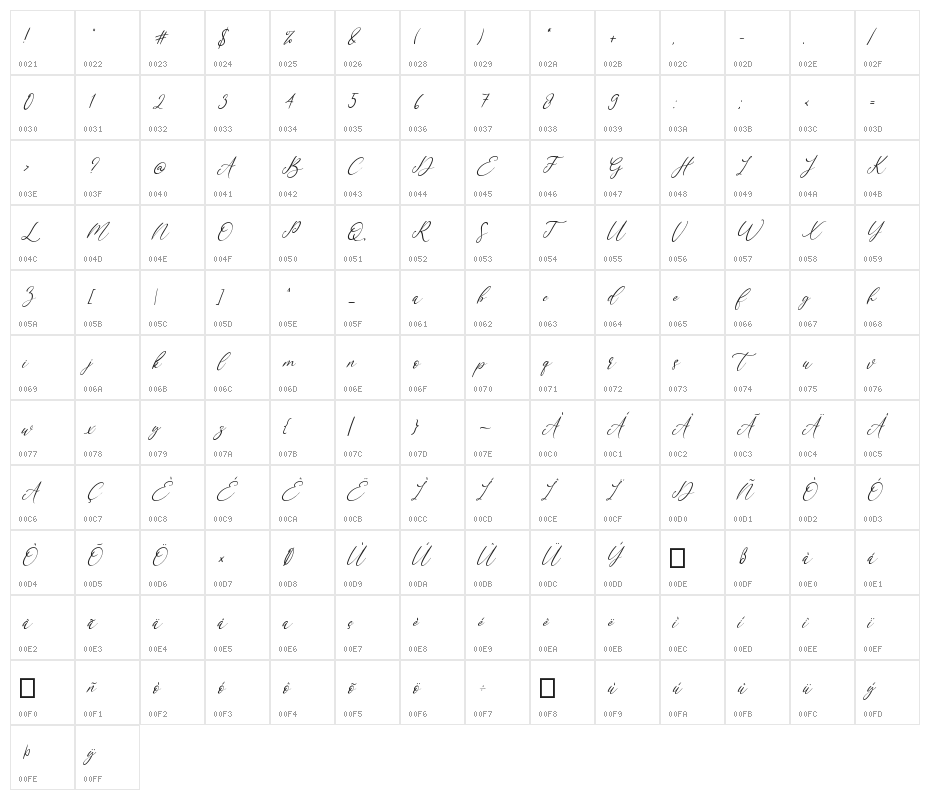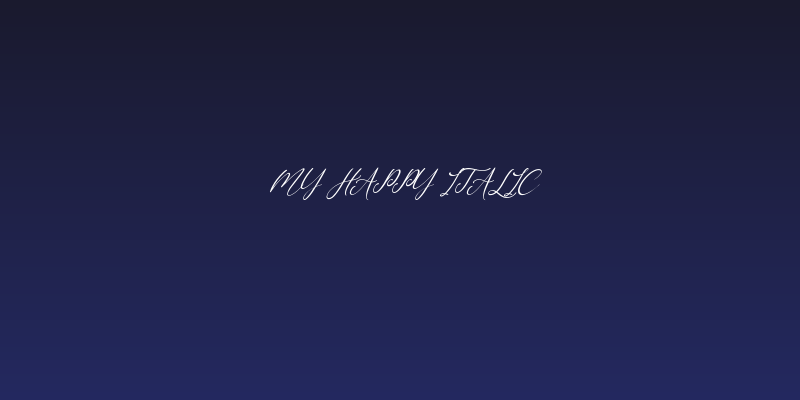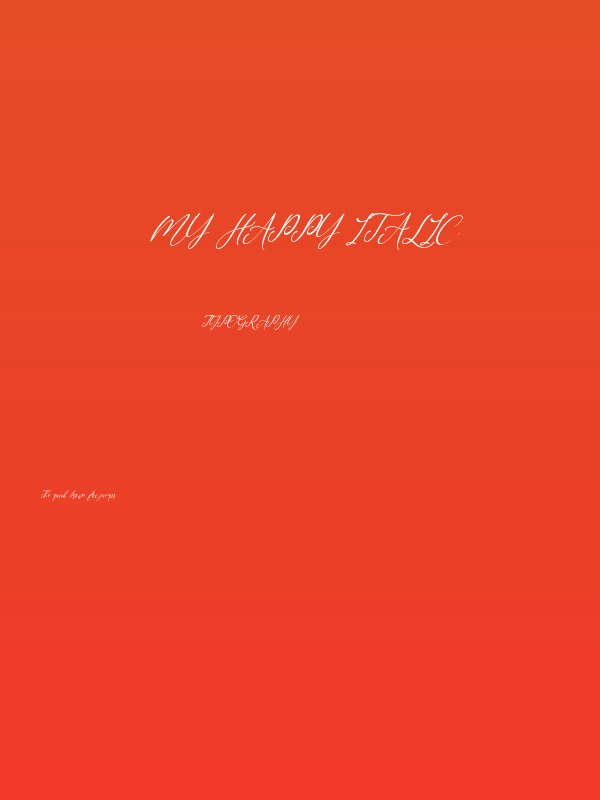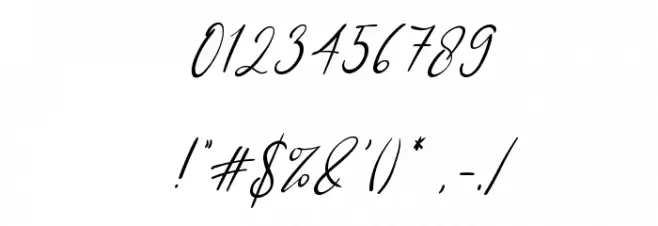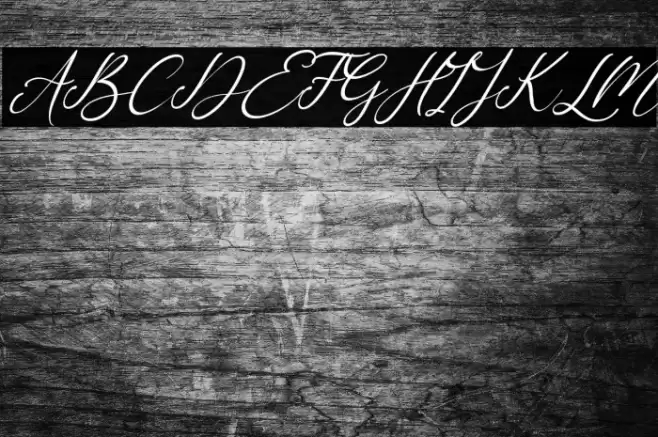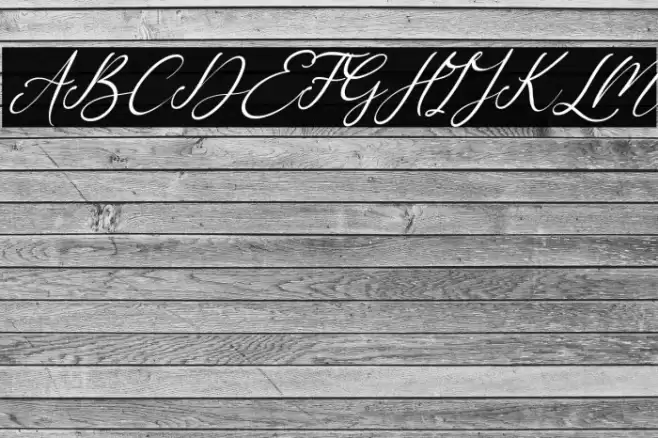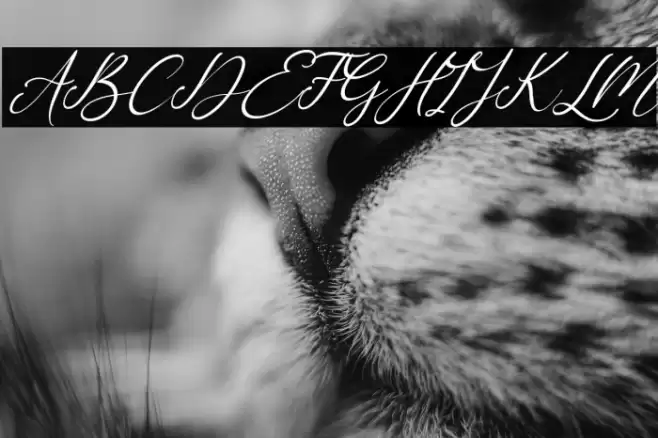
My Happy Italic Font
My Happy Italic Description
This elegant script font features a flowing, cursive style with a distinct italic slant. The characters are interconnected, creating a seamless and graceful appearance. The uppercase letters are ornate and slightly larger than the lowercase, adding a touch of sophistication. The numerals and special characters maintain the same fluidity, ensuring consistency across all elements. The font's delicate strokes and curves give it a refined and artistic look, making it ideal for formal invitations, elegant branding, and decorative projects.
| Overall Style | Elegant |
| Use Case | Invitations, Branding, Decorative |
| Proposed Projects | Ideal for wedding invitations, elegant branding, greeting cards, and decorative projects. |